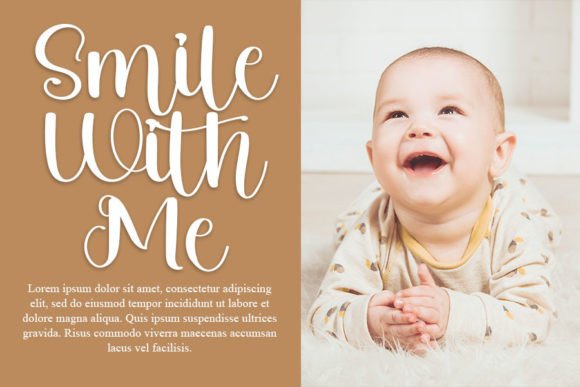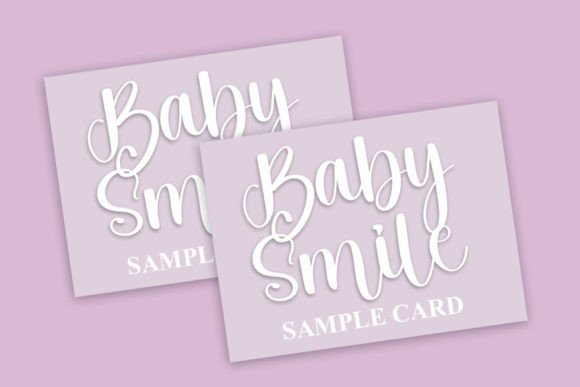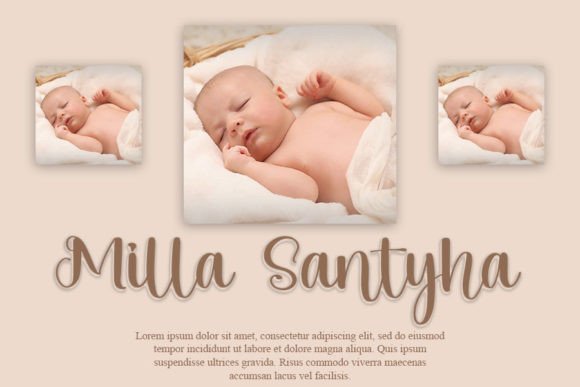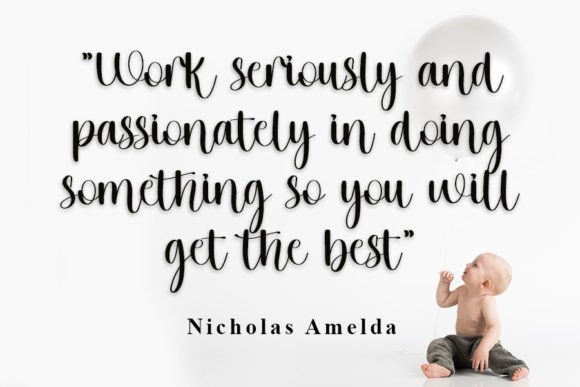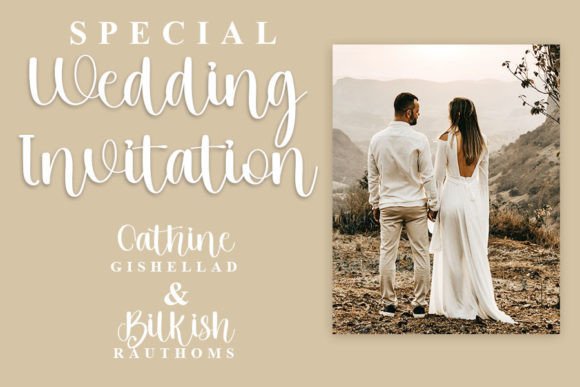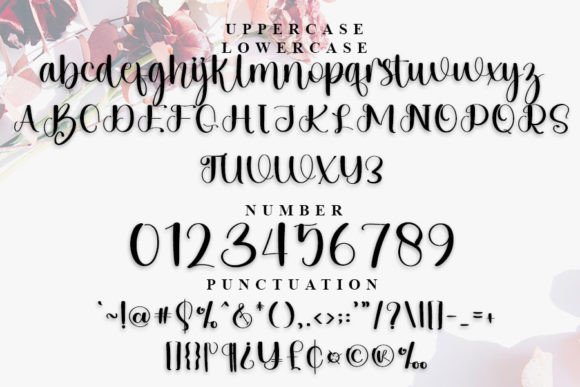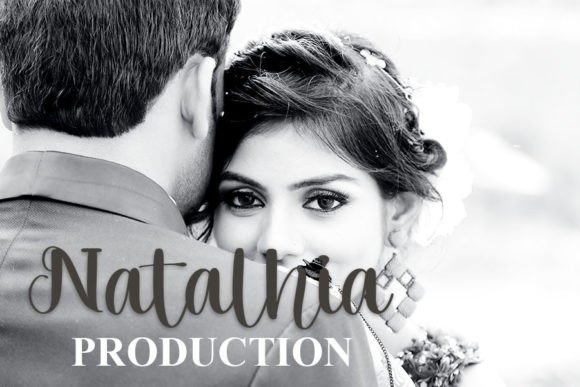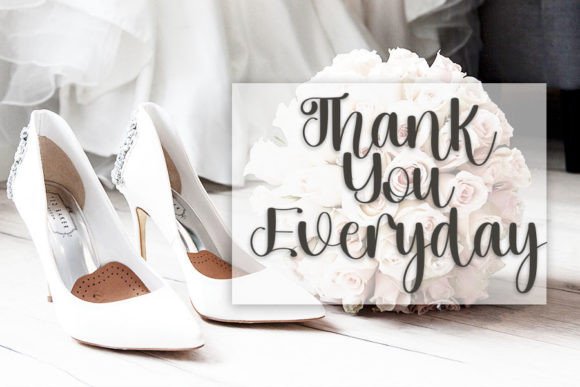
Blackid Font
About Blackid Font
The Blackid font is a trendy handwritten typeface crafted with a strong calligraphic influence. Inspired by timeless classic handwriting styles, this font brings elegance, confidence, and clarity to any design. Its clean, well-balanced strokes make it ideal for both digital and print media, giving your work a modern, high-end feel while maintaining a natural flow.
Whether you’re designing logos, branding elements, wedding stationery, or social media posts, Blackid offers a unique personality that will captivate your audience and add a refined aesthetic to your visuals.
Where to Use Blackid Font
Thanks to its graceful letterforms and modern script vibe, the Blackid font works beautifully across many design platforms. You can apply it to:
• Wedding invitations and formal event stationery
• Logo design and business branding
• Blog headers, signatures, and social media graphics
• Greeting cards and custom illustrations
• Packaging for beauty, fashion, or boutique products
• Labels, menus, or product descriptions
• Posters and print materials with a sophisticated edge
Its versatile design lets you easily transition from personal DIY projects to professional campaigns without compromising quality.
Why Designers Choose Blackid
There are plenty of handwritten fonts out there, but Blackid stands apart. Here’s why designers love to use it:
• Smooth handwritten flow with contemporary elegance
• Full set of uppercase and lowercase characters
• Punctuation, ligatures, and numerals included
From the first glance, this font brings a sense of style that suits upscale branding and creative design alike.
Its delicate yet confident appearance ensures excellent readability and visual appeal on both light and dark backgrounds. This makes it perfect for professional designers and creatives who value aesthetics and versatility.
The Blackid font combines the best of handwritten warmth and modern sophistication. Its flowing strokes and balanced form make it ideal for expressing elegance in every project. Whether you’re creating brand visuals, marketing assets, or event designs, this font will help you communicate with grace and clarity.